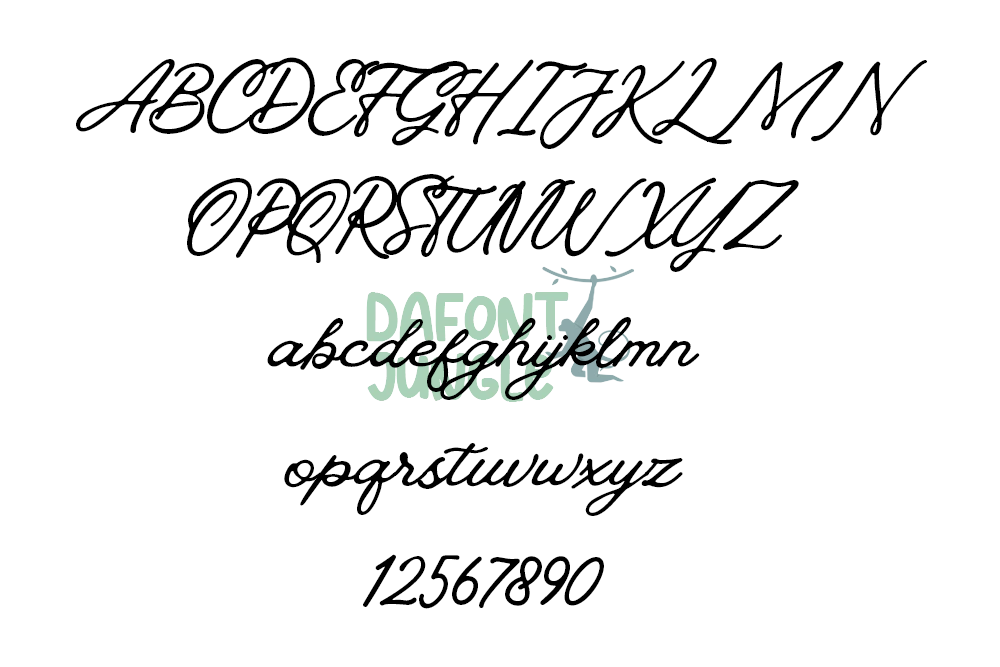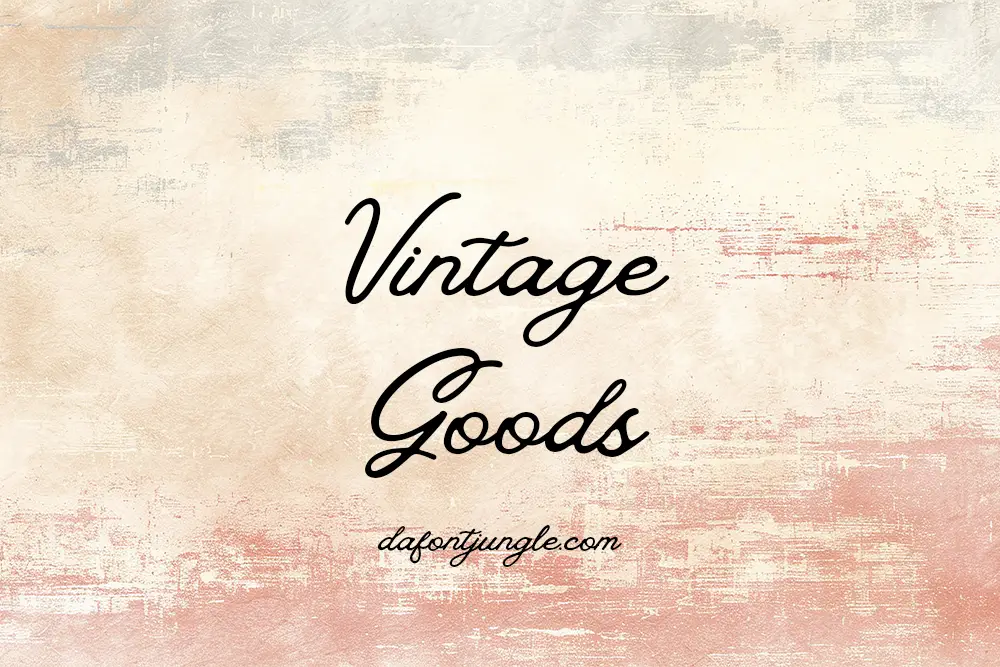
Vintage Goods – 1980s-Inspired Script Font
Vintage Goods is a nostalgic script font inspired by the expressive design style of the 1980s. It draws from the era’s love for calligraphy, photography, and human emotion—blending simplicity with bold character. The font brings a handcrafted feel, making it perfect for logos, product labels, wedding stationery, clothing brands, and retro-themed designs.
Its smooth flow and vintage charm help deliver strong, emotional impact across both print and digital projects.